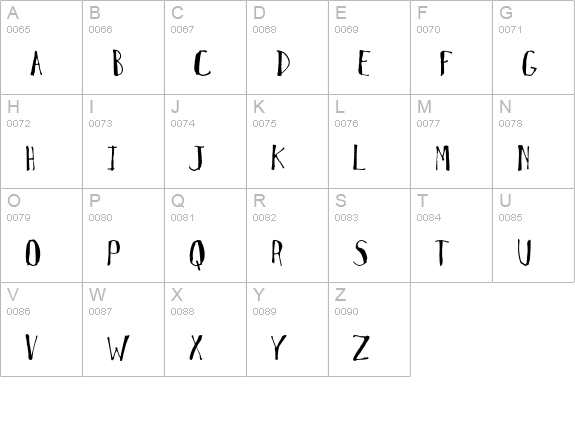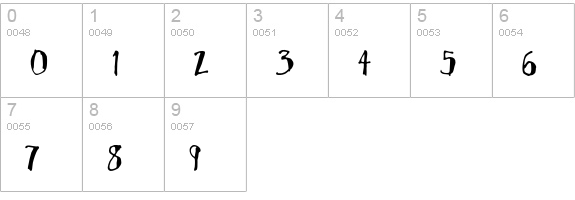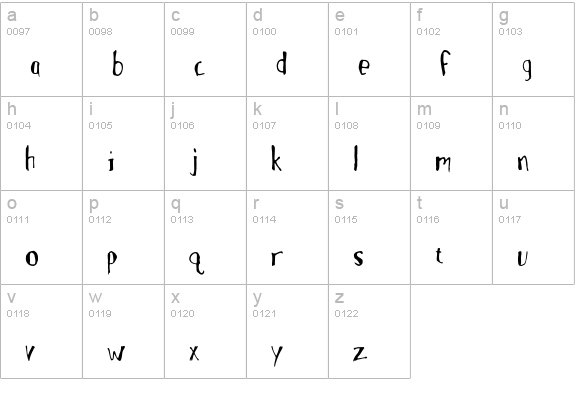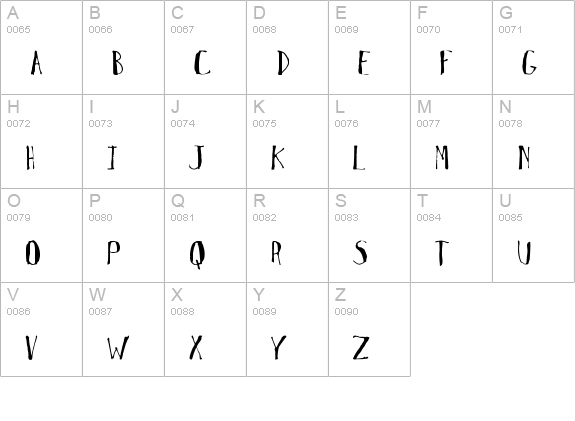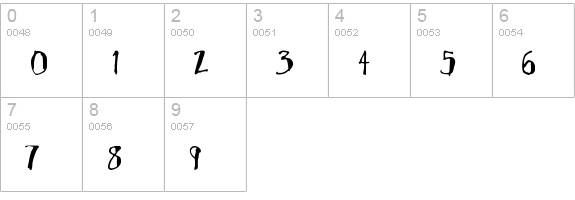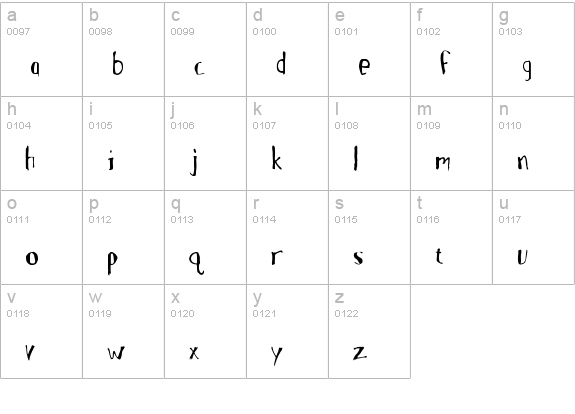
MotherGoose Font Details
MotherGoose font is a charming and whimsical typeface that is perfect for adding a playful touch to your designs. This delightful font features a handwritten style with a touch of elegance, making it versatile for a wide range of projects. With its unique character and warm appeal, MotherGoose font is sure to bring a sense of joy and creativity to your work. Best of all, MotherGoose font is available for free download at FontsMarket.com. This means you can easily access this lovely typeface and use it in your projects without any cost. Whether you're designing invitations, posters, greeting cards, or any other creative project, MotherGoose font is a wonderful choice that will add a touch of magic to your designs. Download it today and let your imagination soar with this beautiful and free font.